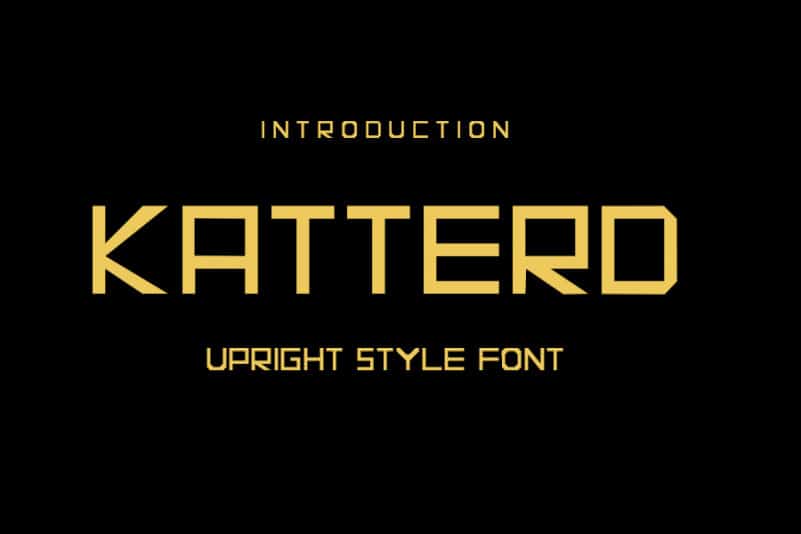
KATTERD Display Font
KATTERD Display Font is a great Sans Serif Font. It maintains its classy calligraphic influences while feeling contemporary and fresh. This versatility will appeal to a wide range of crafty ideas, from letterheads and titles to stationery.